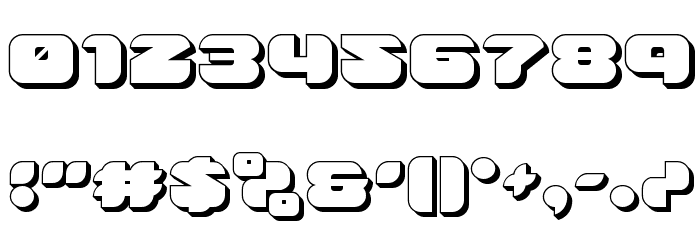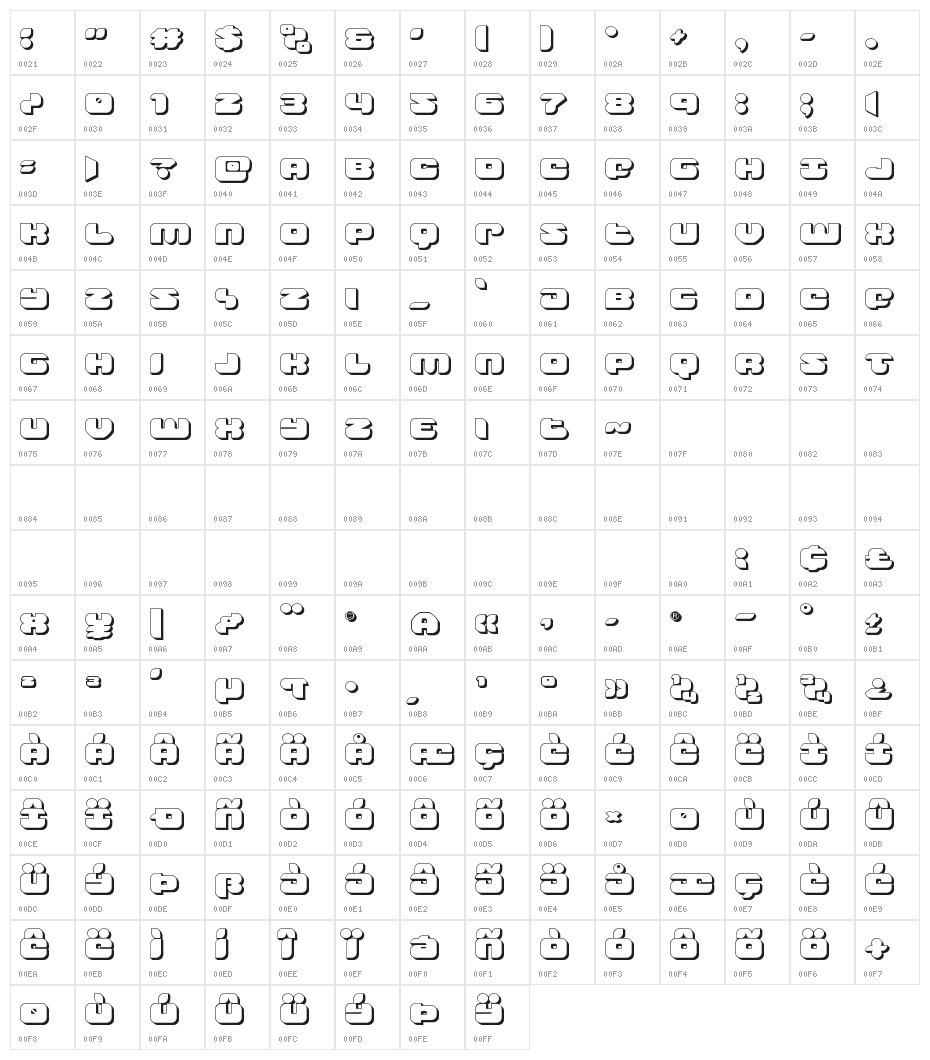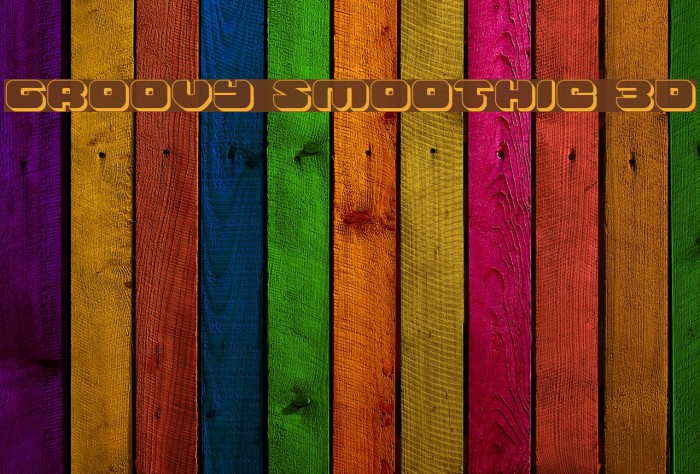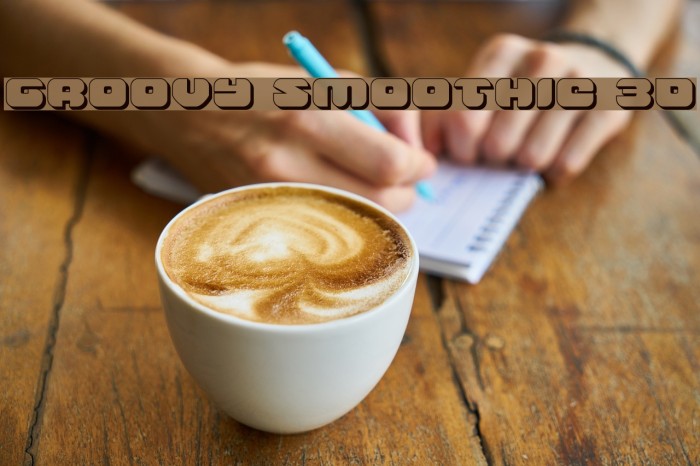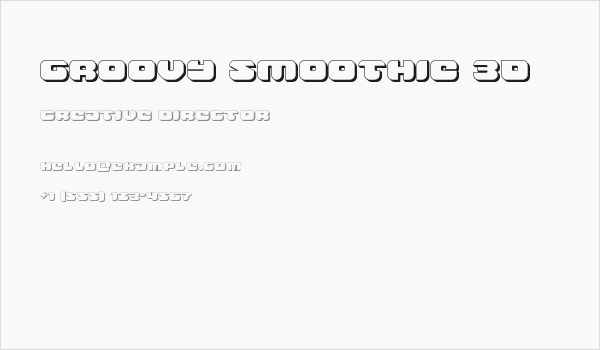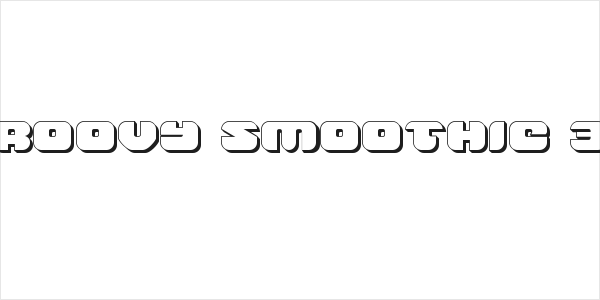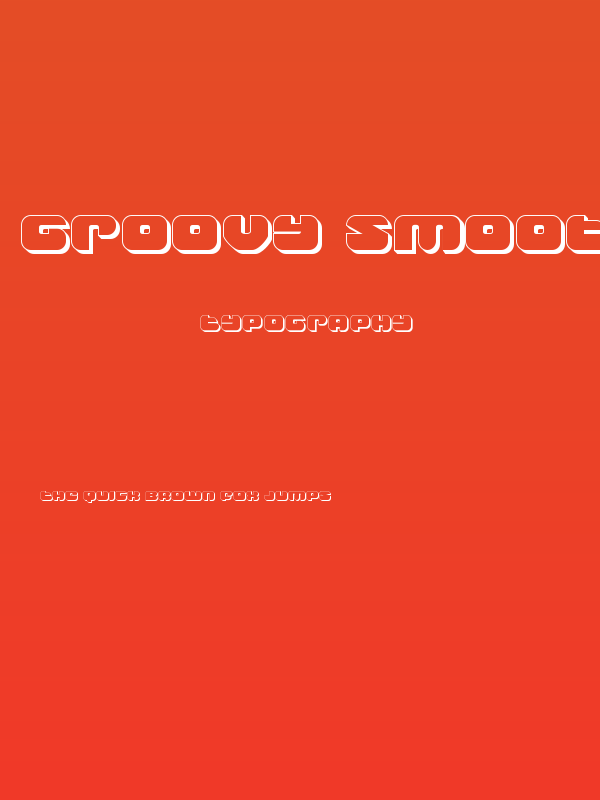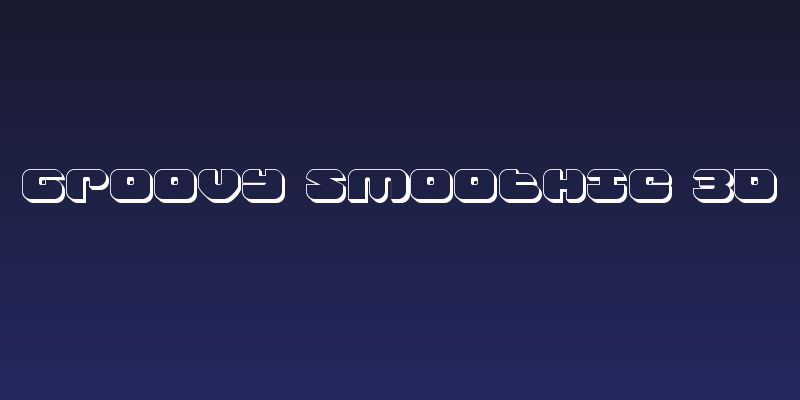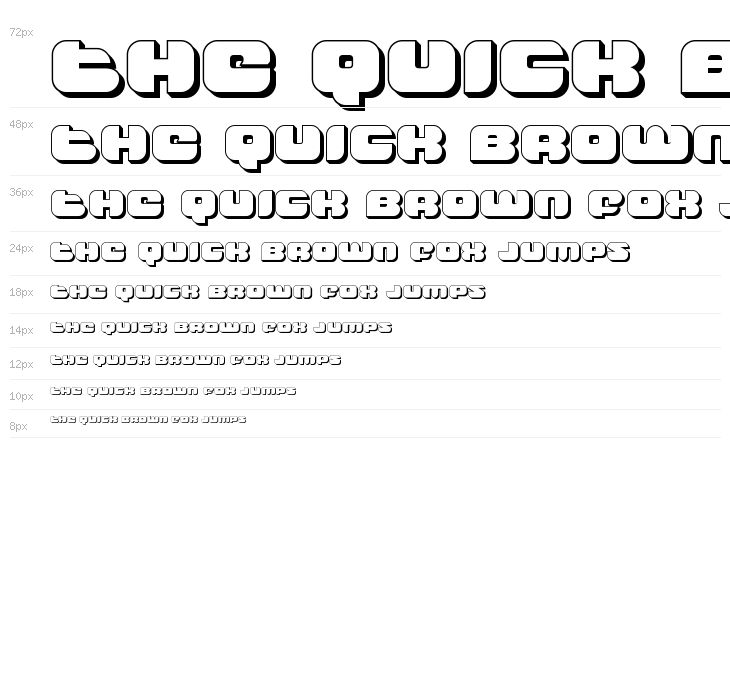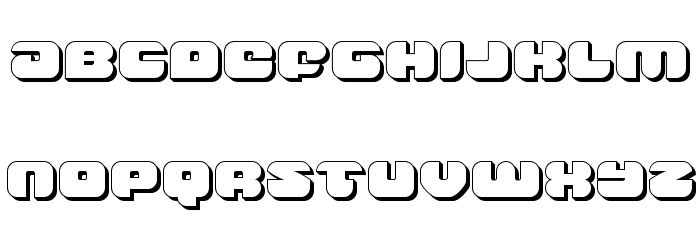
Groovy Smoothie 3D Font
Groovy Smoothie 3D Description
This font features a playful and bold 3D style with rounded edges and a thick outline, giving it a bubbly and cartoonish appearance. The characters are uniformly wide, creating a cohesive look across the alphabet. The uppercase and lowercase letters maintain a consistent style, with the lowercase slightly smaller but equally bold. Numbers and special characters follow the same design principles, ensuring a harmonious overall appearance. The font's unique style makes it stand out, perfect for projects that require a fun and engaging visual element.
| Overall Style | Playful, Cartoonish |
| Proposed Projects | Ideal for children's books, playful branding, posters, and party invitations. |